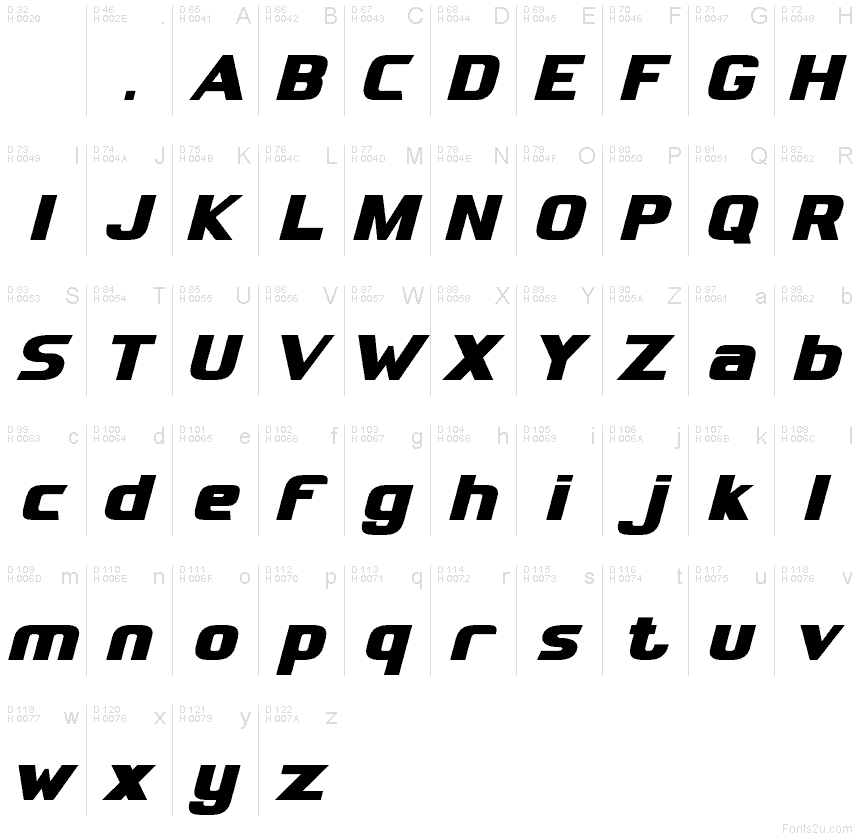
TRAVAX Regular
Travax font by Achmad Yani is an expanded bold display font with techno style. The modern geometric font has angular shapes which give it a strong presence and a crisp look. Versatile in its applications, this powerful typeface will make all your designs stand out.
Use it for buttons, website titles, exhibition posters, advertising billboards, book covers, album covers, video games interfaces and aesthetic poster designs. Other areas to use it include landing pages designs or art projects.